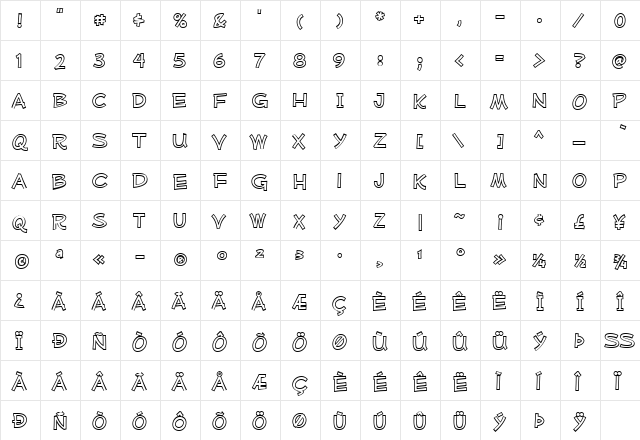
Mufferaw Outline Regular
Design Context for Mufferaw Outline Typeface
Mufferaw Outline brings ornamental detail and strong personality to headlines and identities, where visual impact matters more than quiet functionality.
Font Pairing: Pair with a clean neutral sans-serif for body copy to let Mufferaw Outline's character lead without overwhelming the composition.
Pro Tip: Treat Mufferaw Outline as the centrepiece of your typographic hierarchy. One strong heading set in a decorative face can carry an entire layout.